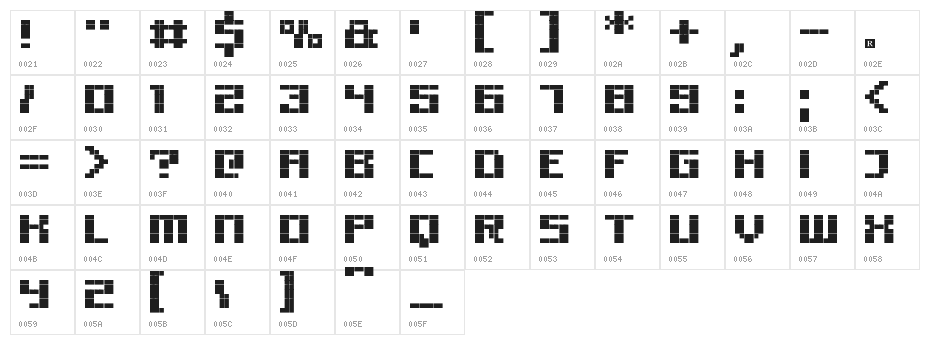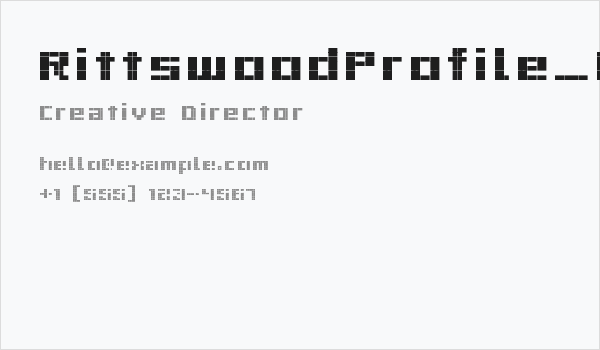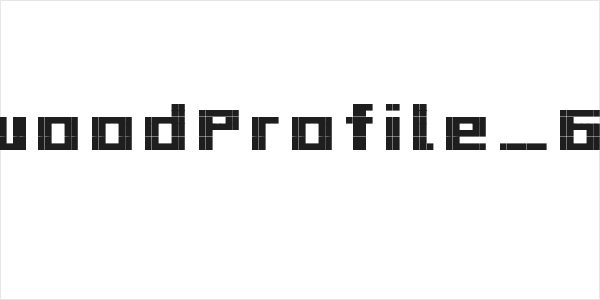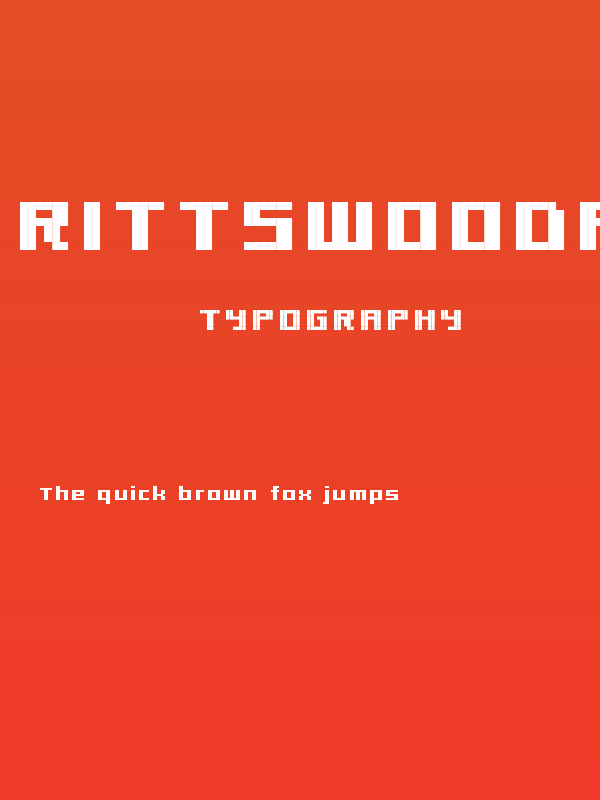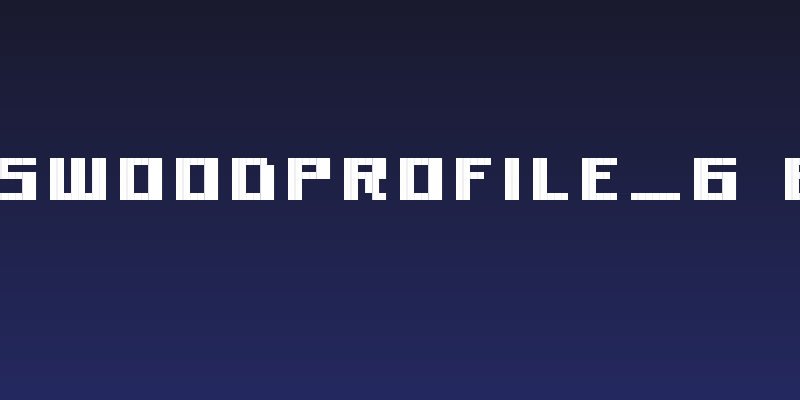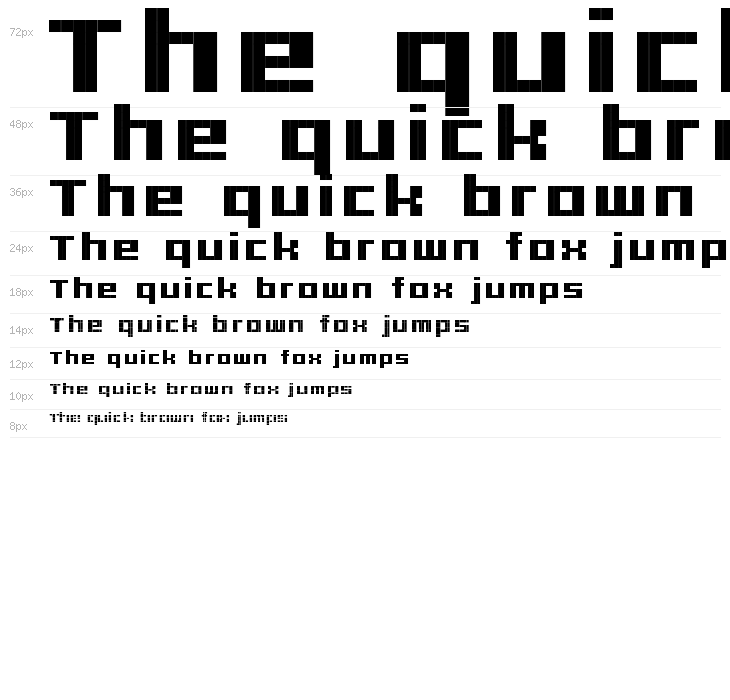
RittswoodProfile_6 Bold Font
RittswoodProfile_6 Bold Description
This font features a bold, pixelated design reminiscent of classic arcade games and digital displays. Each character is constructed with a blocky, grid-like appearance, giving it a distinctly retro and technological feel. The uppercase and lowercase letters maintain a consistent height and width, creating a uniform look across the alphabet. Numbers and special characters follow the same pixelated style, ensuring cohesion throughout. The font's geometric nature makes it highly legible, even at smaller sizes, while its boldness ensures it stands out in any context.
Overall StyleRetro, Digital
Proposed ProjectsIdeal for video game graphics, tech-themed posters, digital art projects, and retro-style branding.